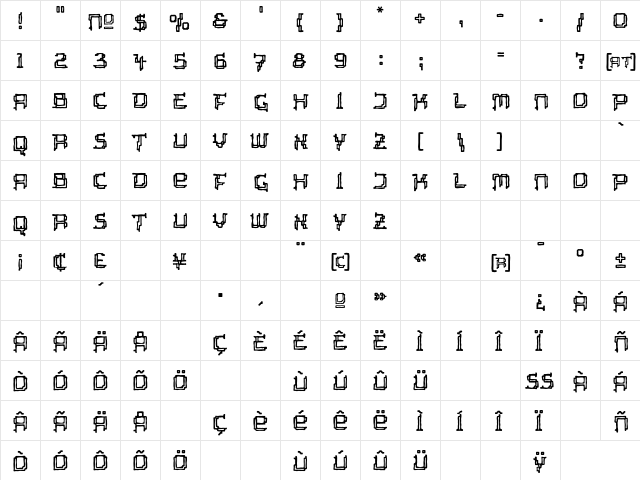
Tipi Organic Inline Regular
| Foundry | Schmalfett |
| Designer | Thomas Mettendorf |
Design Context for Tipi Organic Inline Typeface
Tipi Organic Inline brings ornamental detail and strong personality to headlines and identities, where visual impact matters more than quiet functionality.
Font Pairing: Pair with a clean neutral sans-serif for body copy to let Tipi Organic Inline's character lead without overwhelming the composition.
Pro Tip: Use Tipi Organic Inline exclusively at display sizes — it was designed to be seen, not read at length. Let a neutral companion handle body copy.